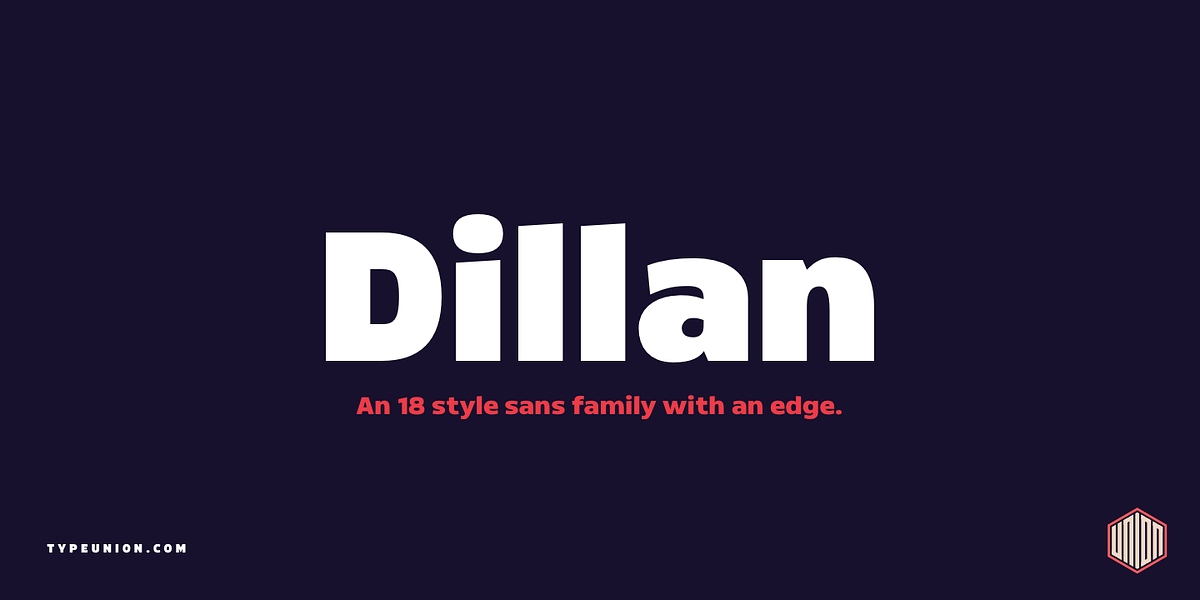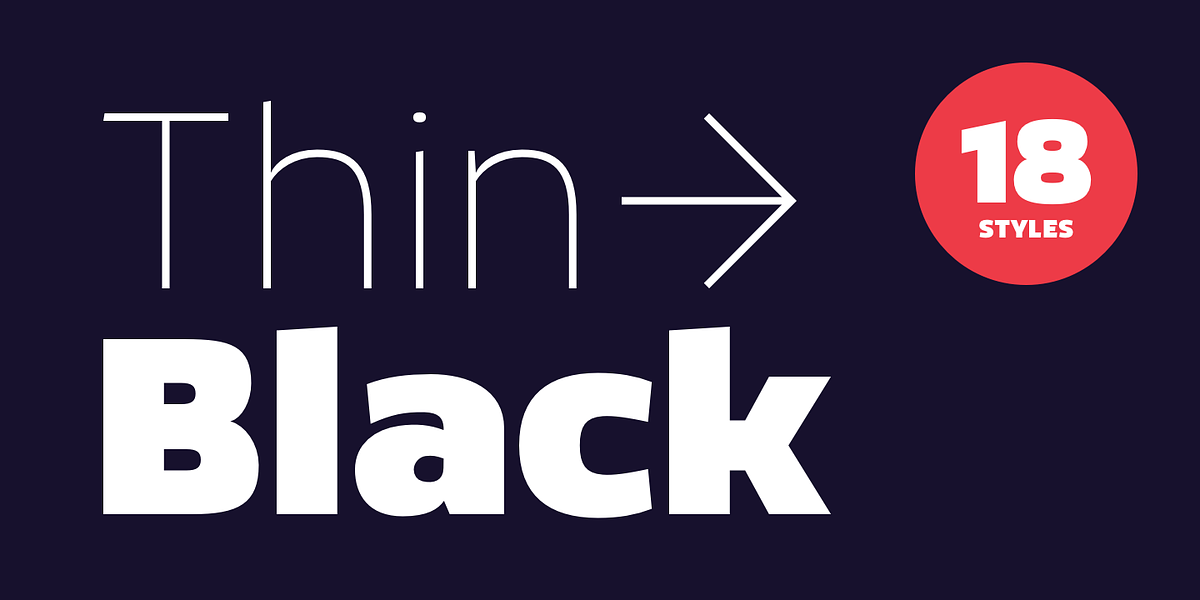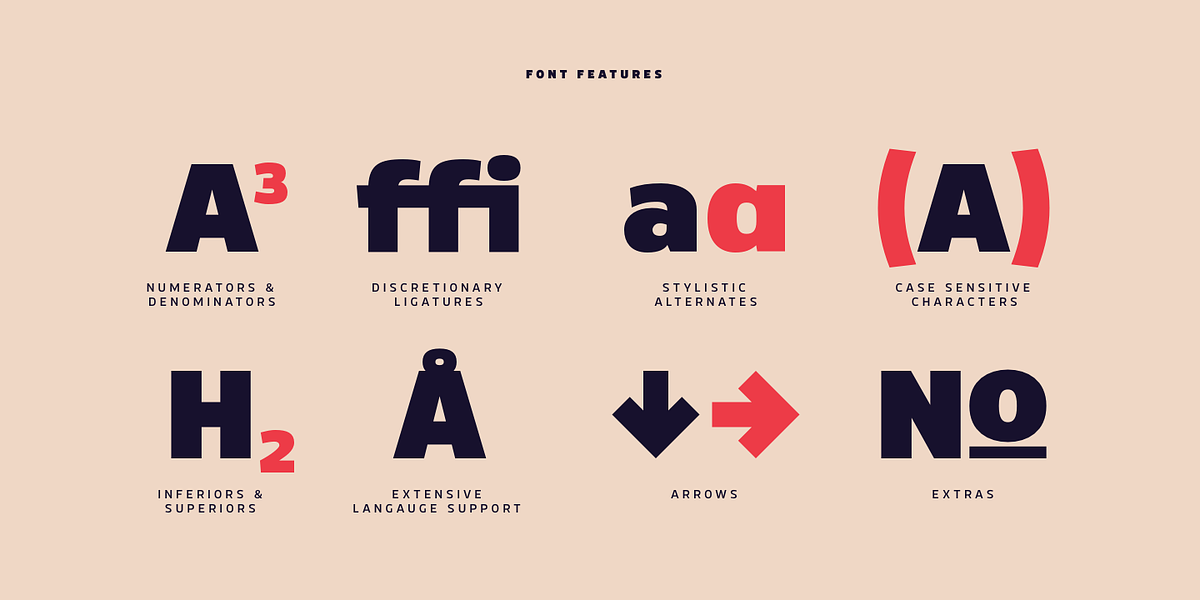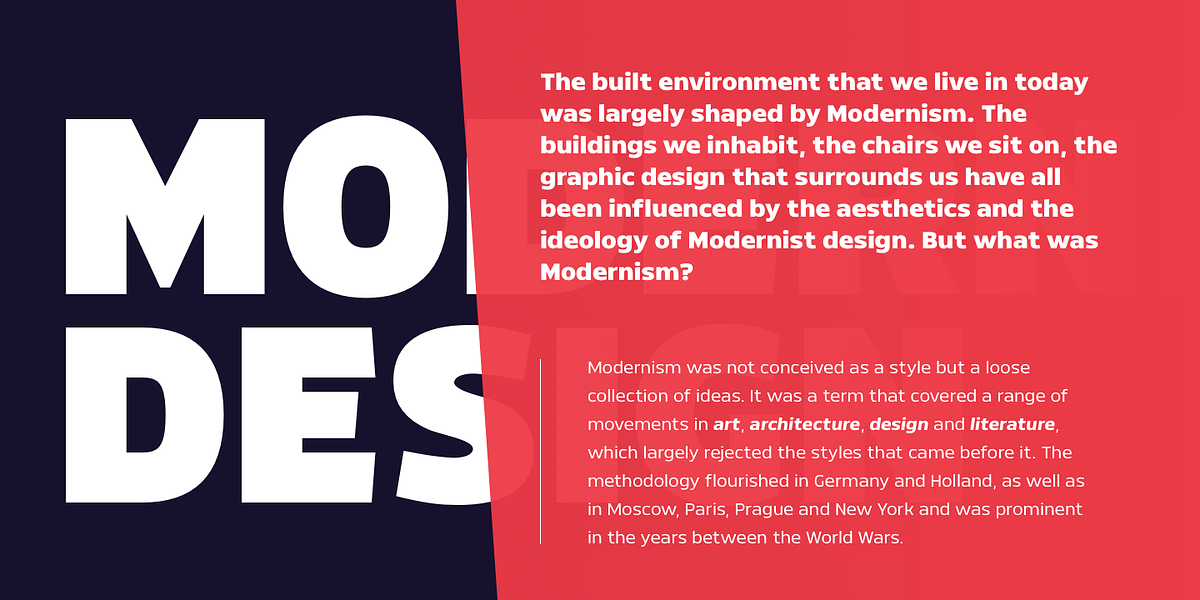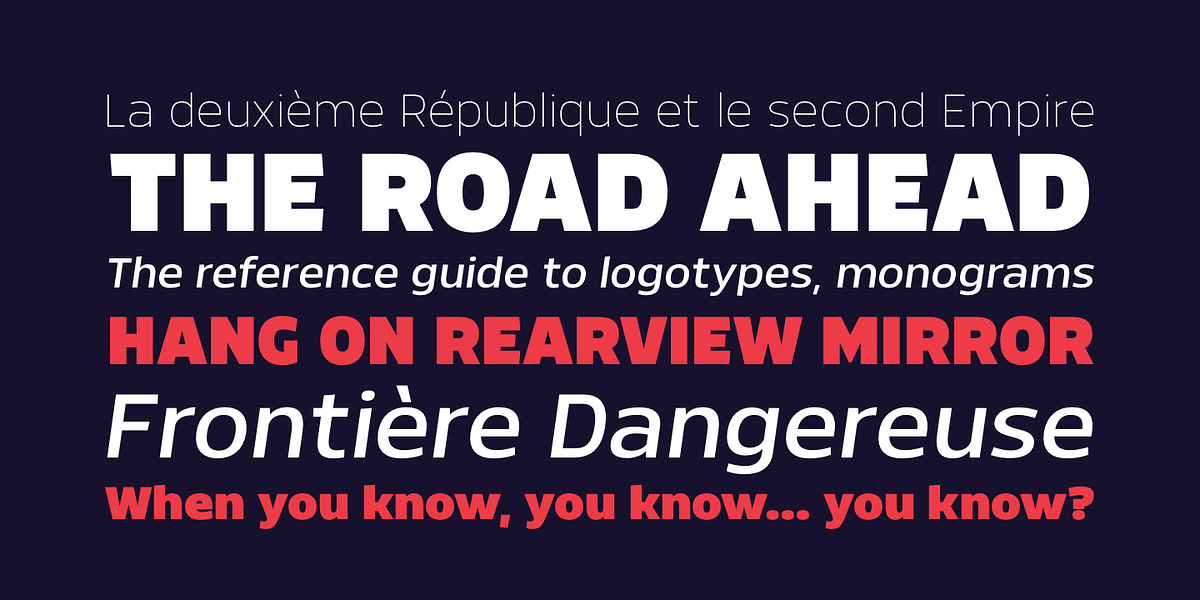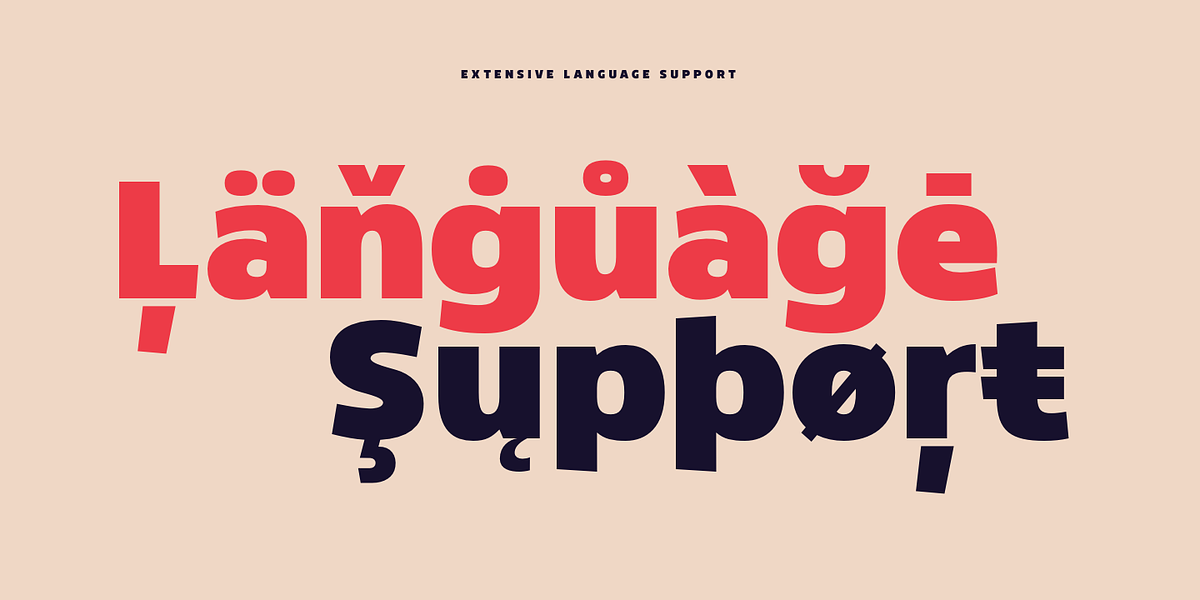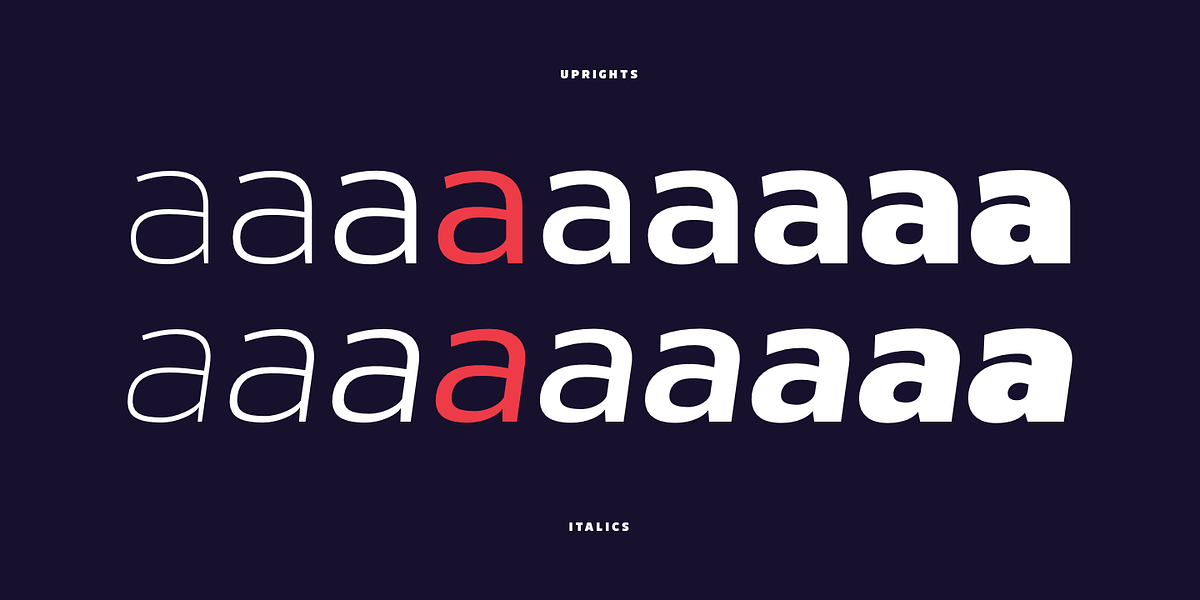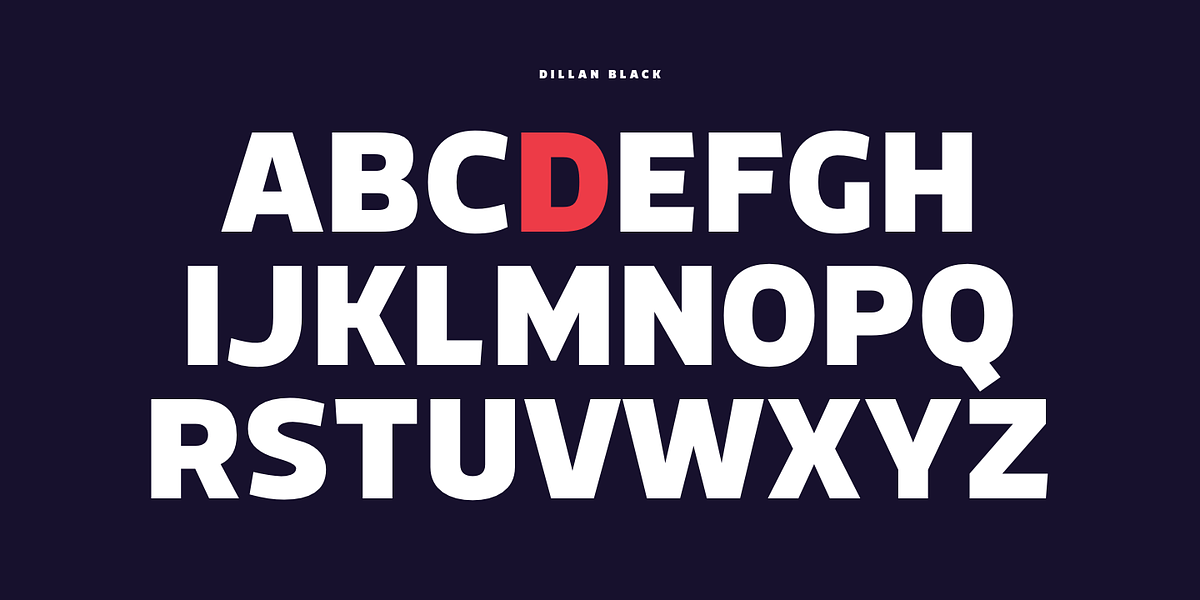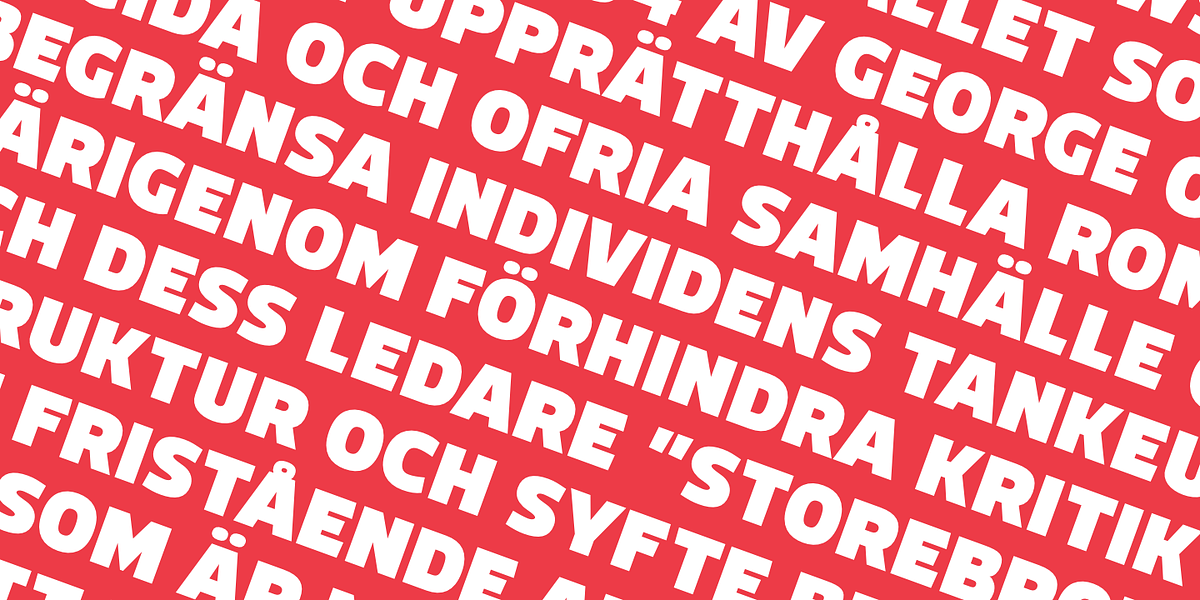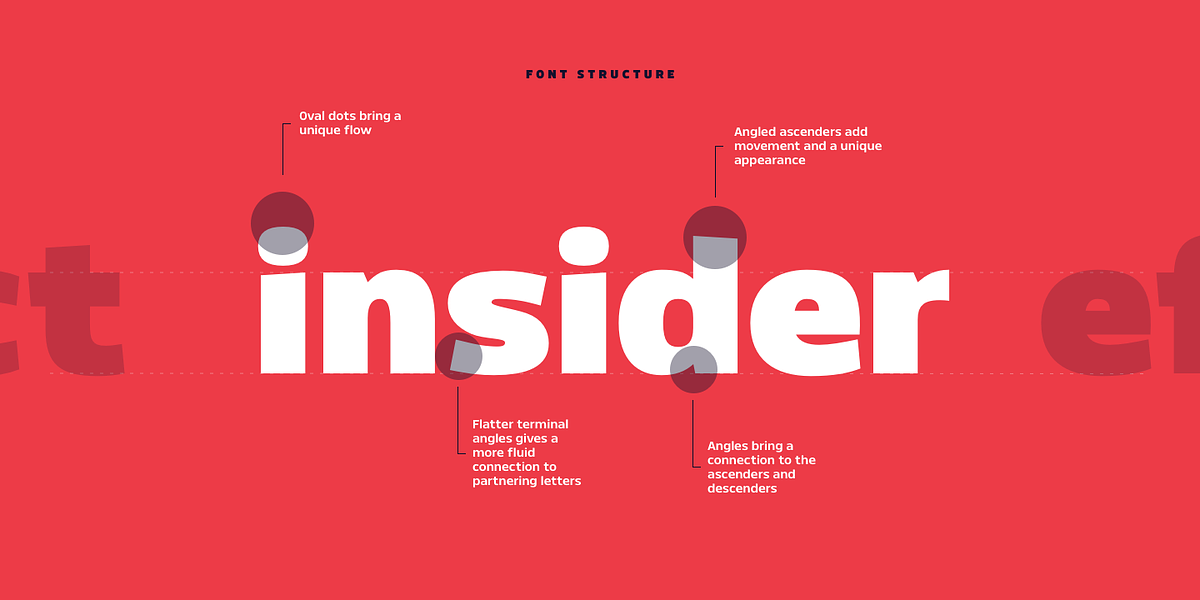
Dillan
Dillan is a neo-humanist sans serif font characterized by its angled ascenders and flatter terminal angles. This unique design gives Dillan a contemporary feel while maintaining excellent readability thanks to its high x-height. The font family includes nine weights with matching italics, stylistic alternates, extensive European language support, case sensitive characters, and ligatures.